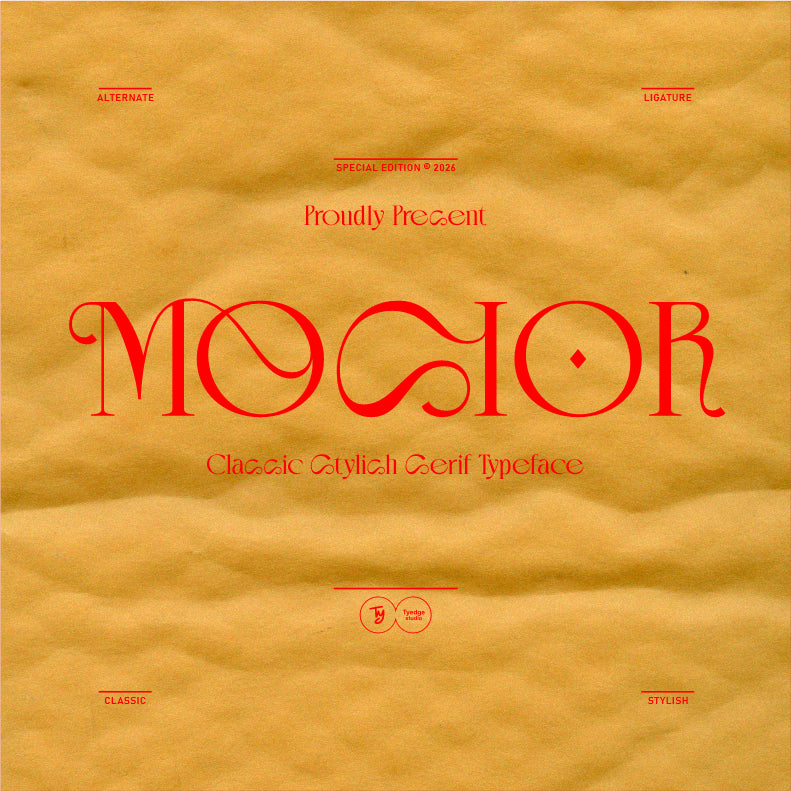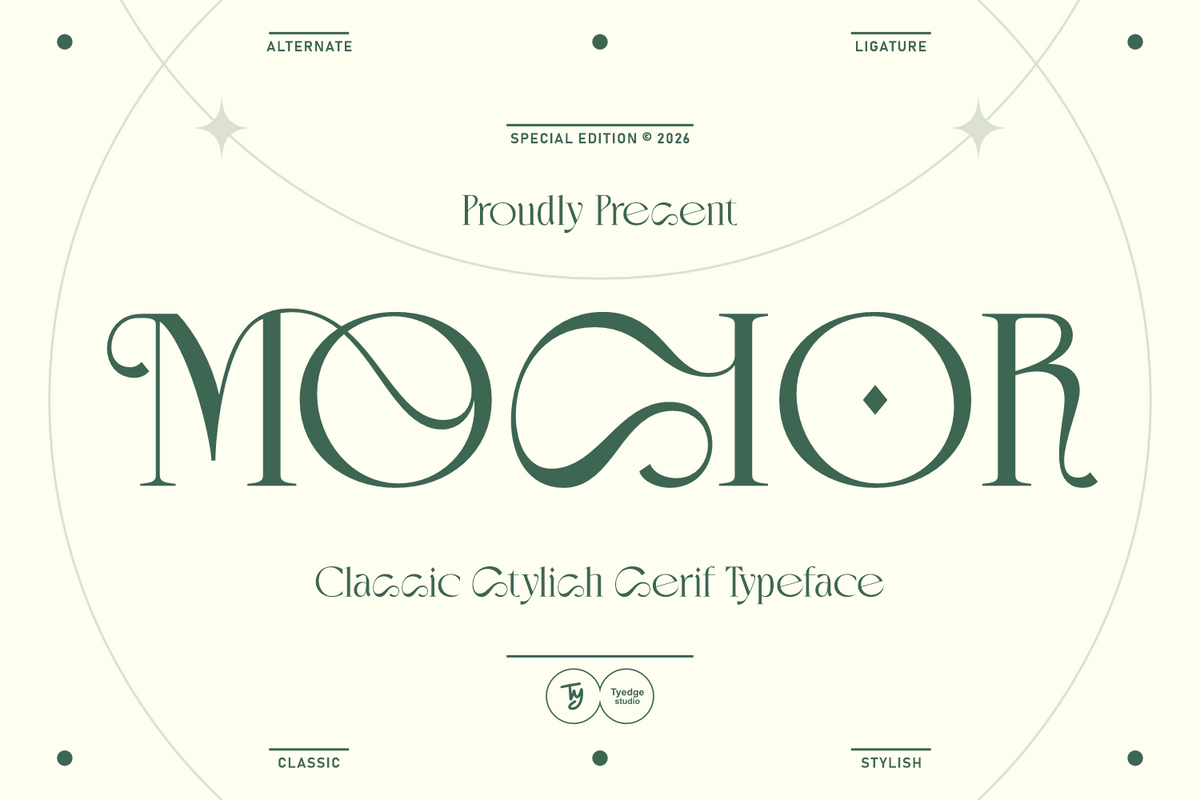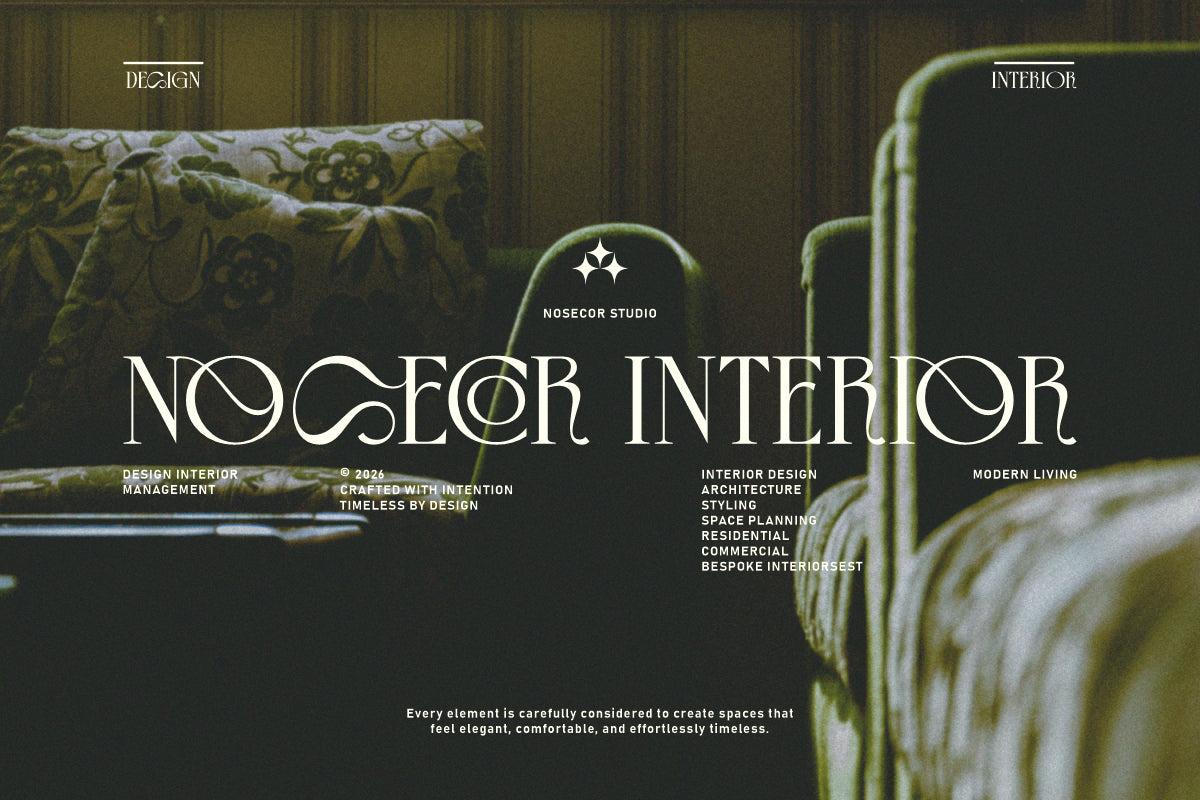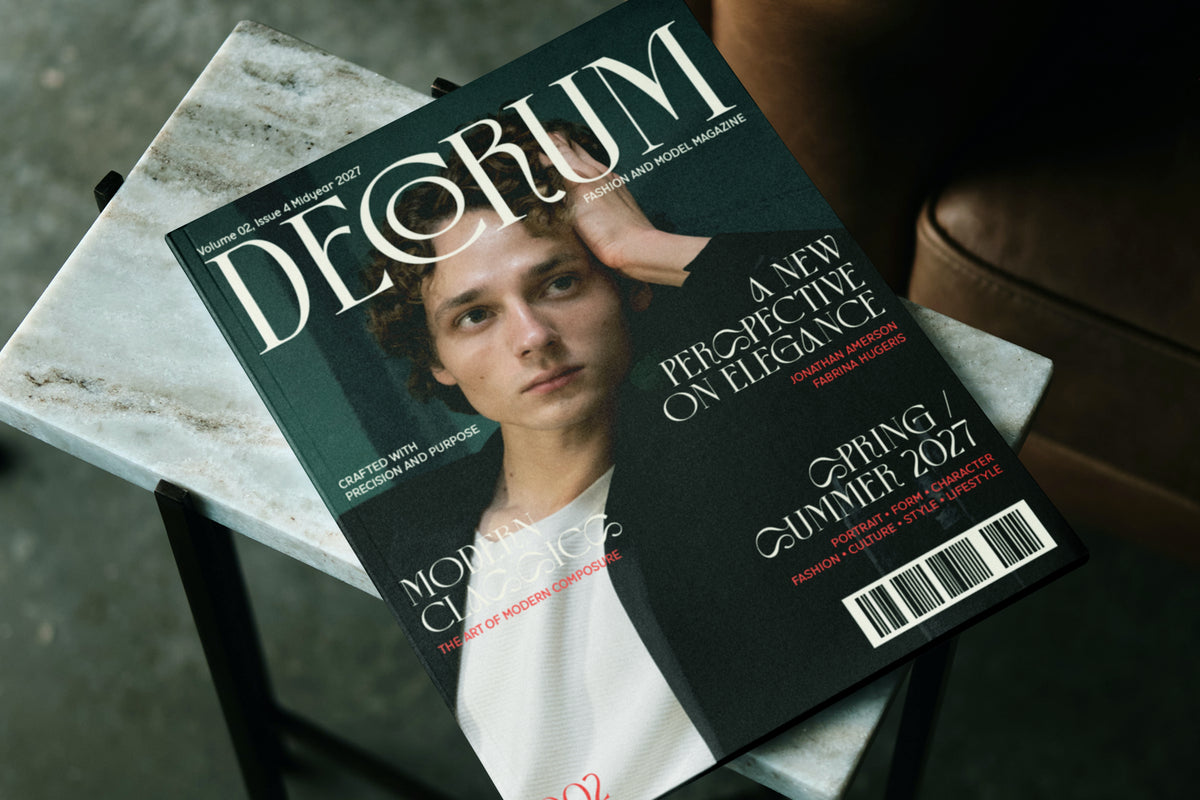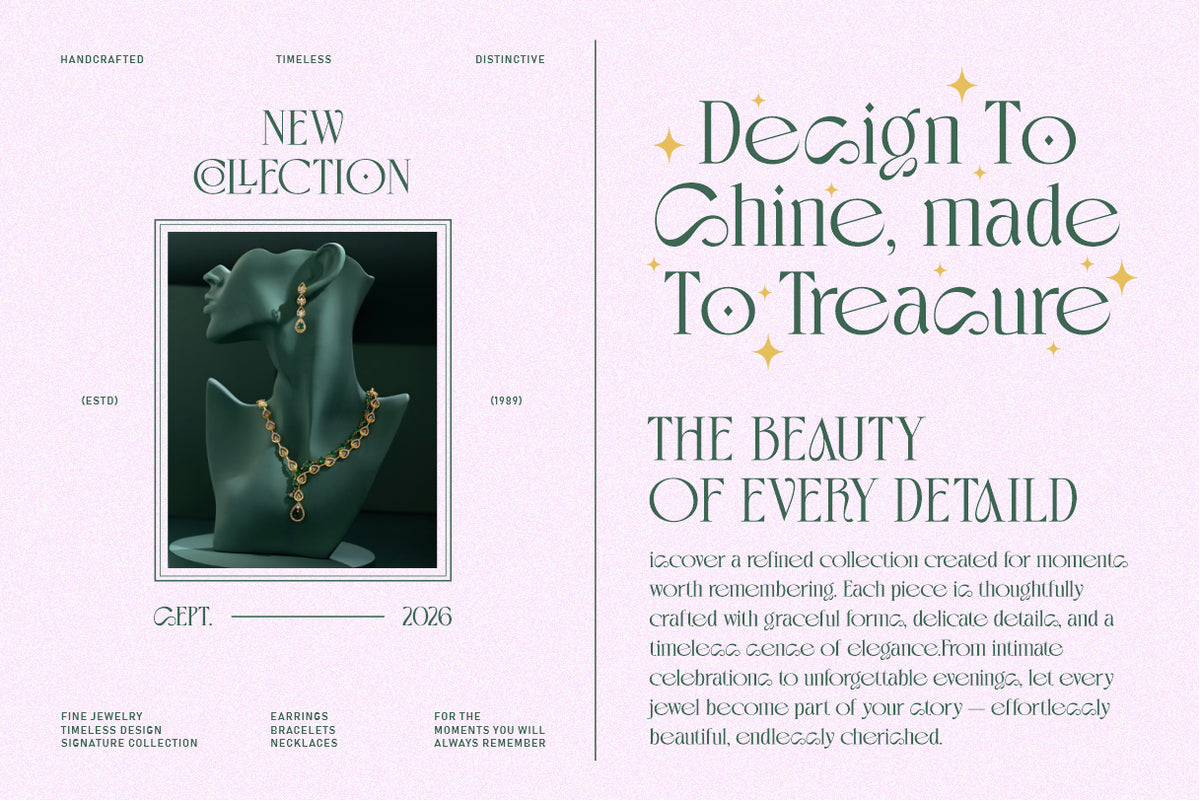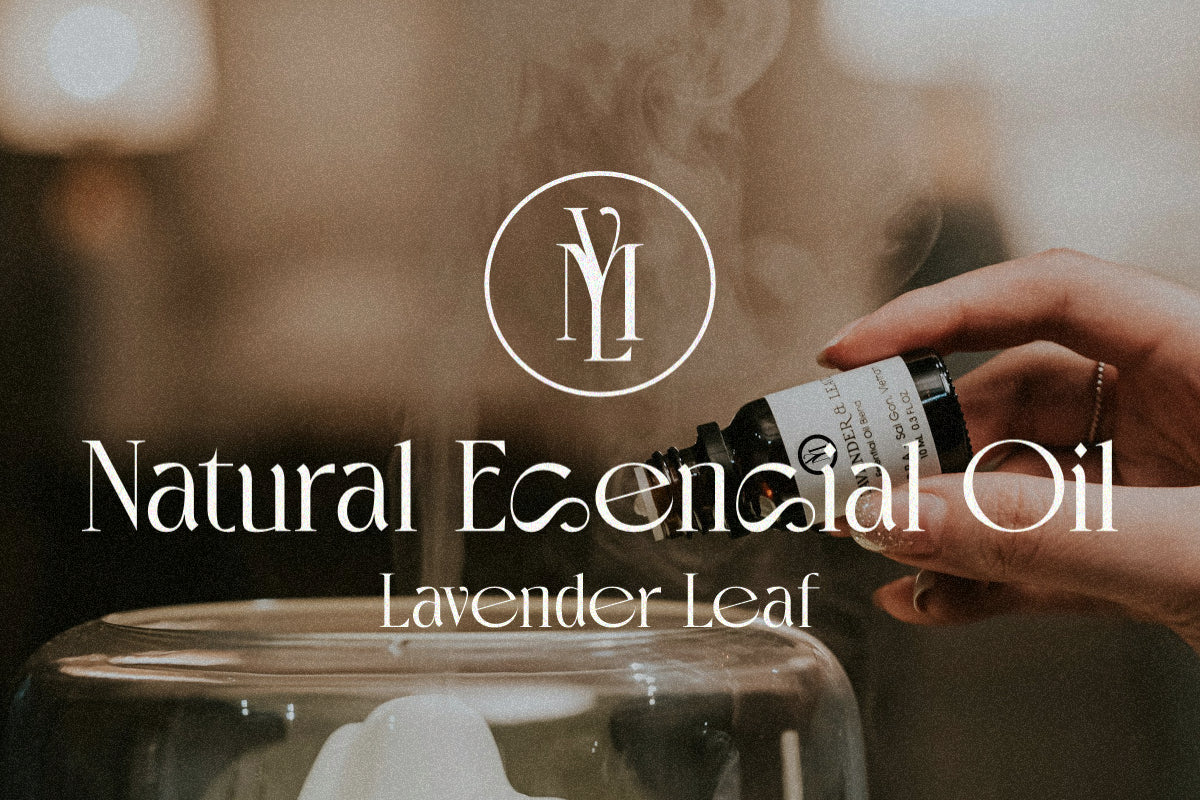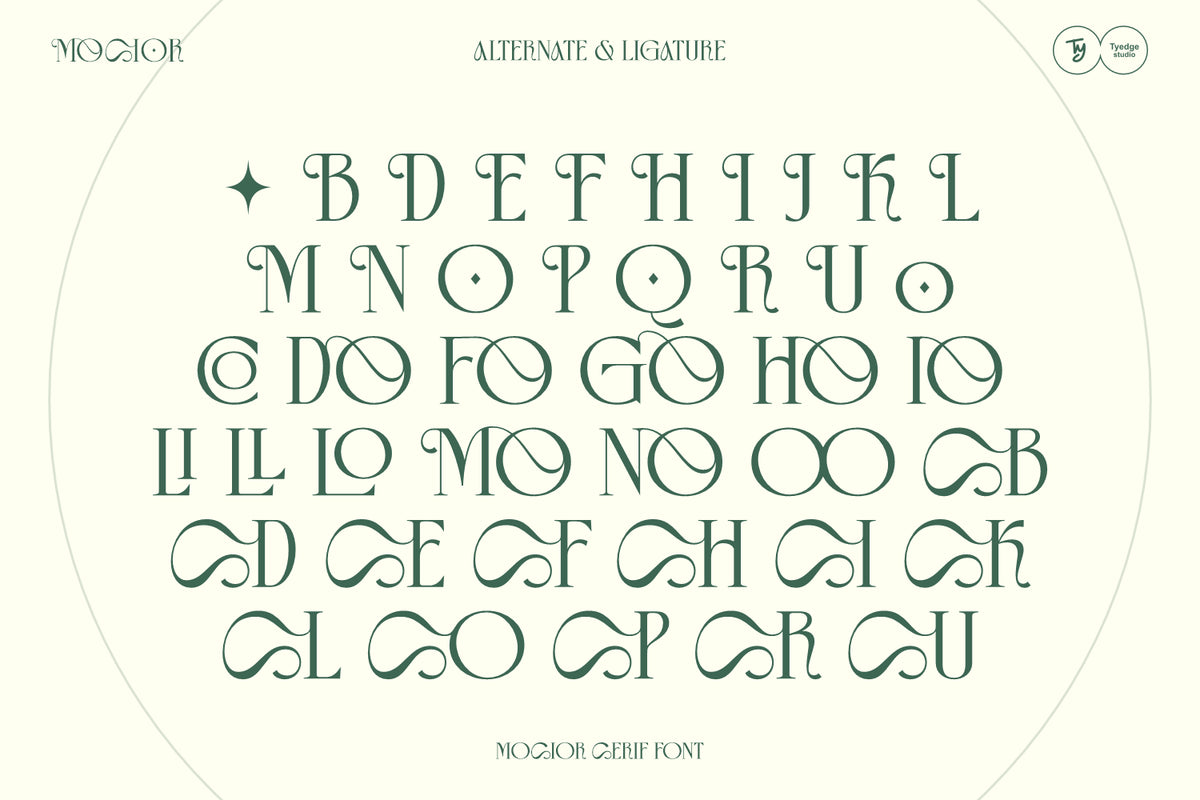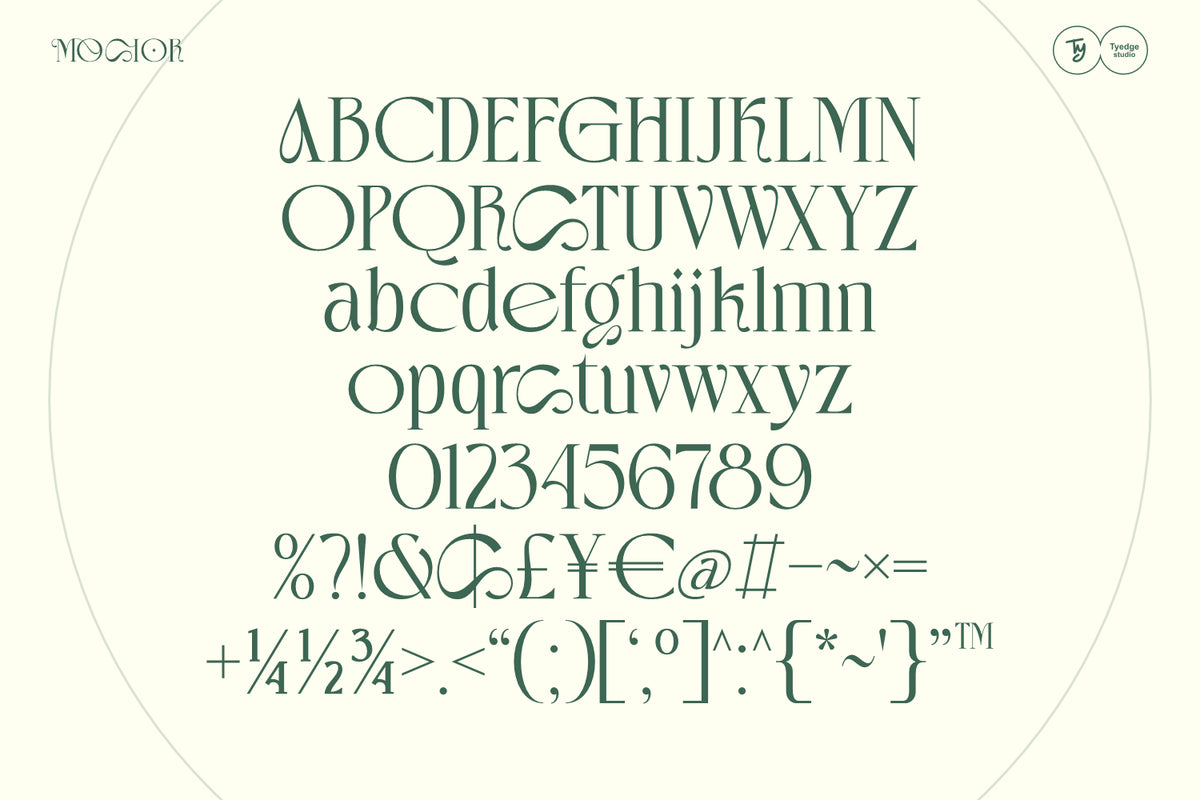
MOSIOR Stylish Serif Typeface
Elevate your designs with MOSIOR, an elegant serif font that blends classic richness with unique contemporary style. Featuring artistic letterforms, graceful curves (swashes), and stunning proportions, MOSIOR is designed to make your work look sophisticated, classy, and truly stand out.
This font is ideal for a wide range of creative projects, including logo branding, beauty and skincare product packaging, fashion magazines, wedding invitations, website editorials, posters, and aesthetic social media content.
Key Features:
Complete Character Set: Uppercase and lowercase letters.
Numbers & Punctuation: Includes a full set of numerals and symbols/punctuation marks.
Multilingual Support: Supports a wide range of international language characters.
Unique Aesthetic: Features distinctive, artistic, and elegant letter curves (visible in characters like A, R, S, etc.).
Perfect For:
Luxury Logo Design & Branding
Product Packaging (Boxes & Labels)
Editorials, Magazines, & Book Covers
Wedding Invitations & Stationery
Branding for Boutiques, Salons, Spas, & the Fashion Industry
Social Media Feed & Story Designs
MOSIOR is a serif typeface featuring uppercase and lowercase letters, numerals, punctuation, and multilingual character support, with distinctive curves and swashes on select letterforms. The font is provided in OTF, TTF, and WOFF file formats.